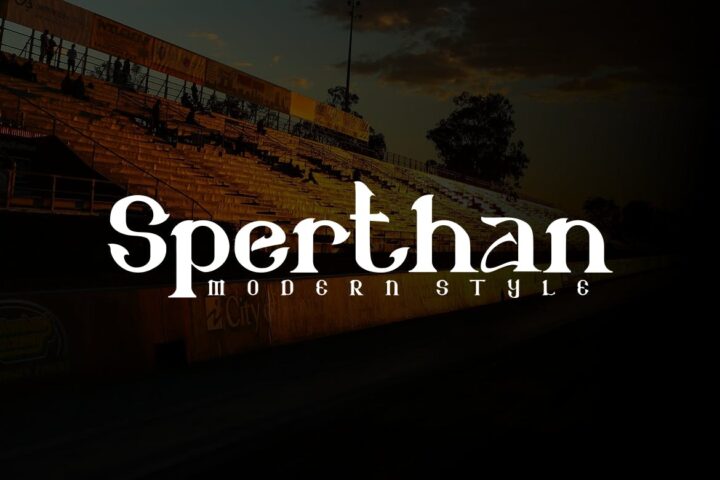
Sperthan – Slab Serif Fonts
Introducing Sperthan, a simple and modern slab serif font. So perfect for you who needs a typeface for logo designs, magazine, social media, brochure, and many more.